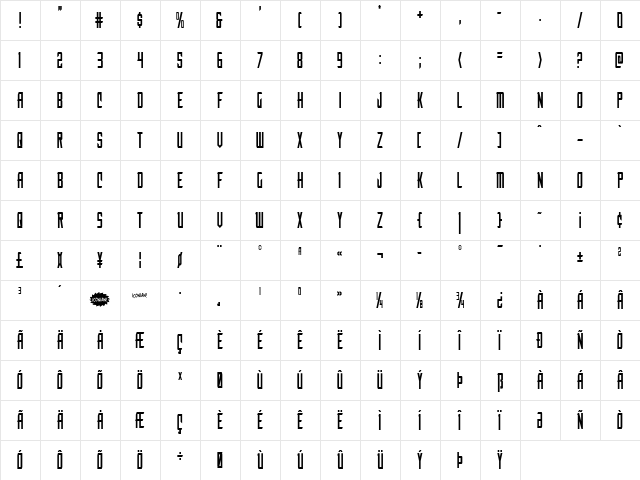
Nemesis Enforcer Condensed Condensed
Design Context for Nemesis Enforcer Condensed Typeface
Nemesis Enforcer Condensed brings high-energy athletic personality to the page — its confident, muscular forms are built for impact. The condensed width makes it efficient for tight spaces without sacrificing legibility.
A natural choice for gym brands, fantasy sports, jersey lettering, and action-driven headlines.
Pro Tip: Use Nemesis Enforcer Condensed in all-caps headlines where its athletic energy can fully express itself. Pair with a solid, simple sans for supporting text.